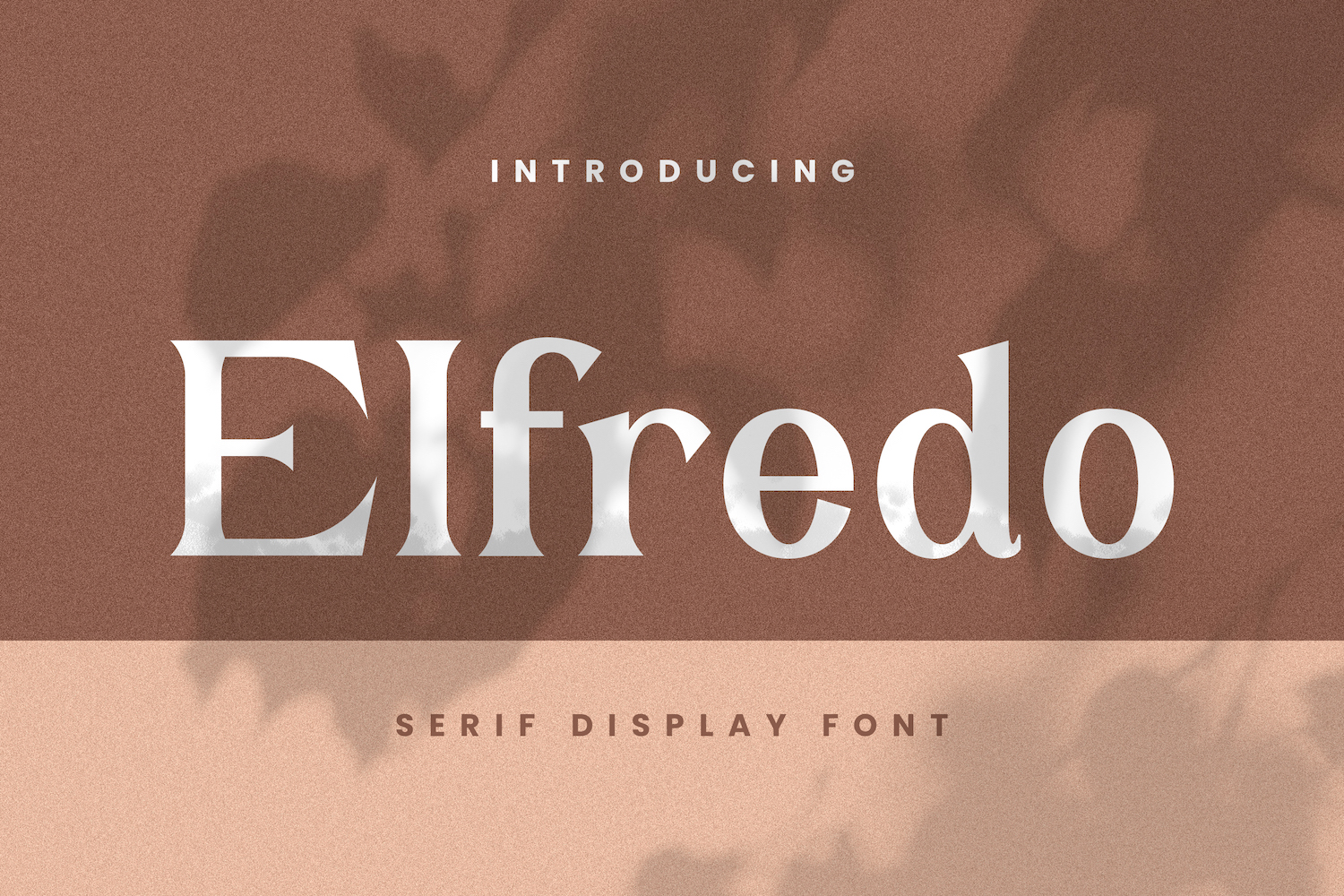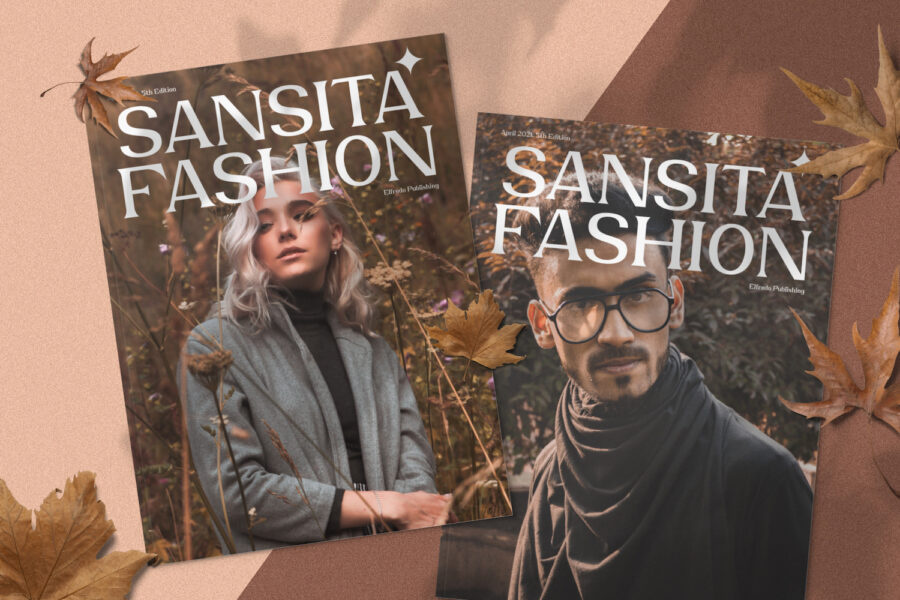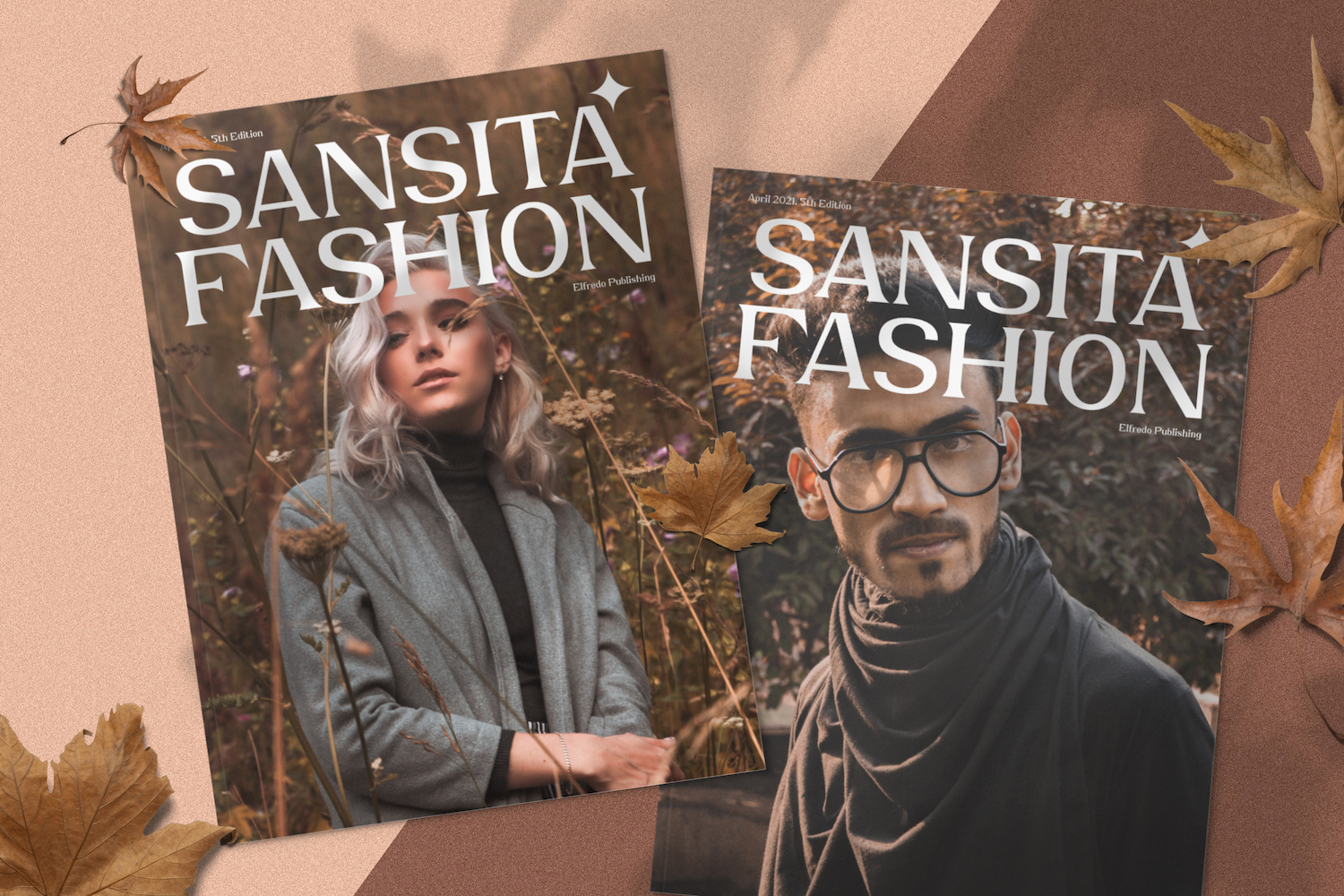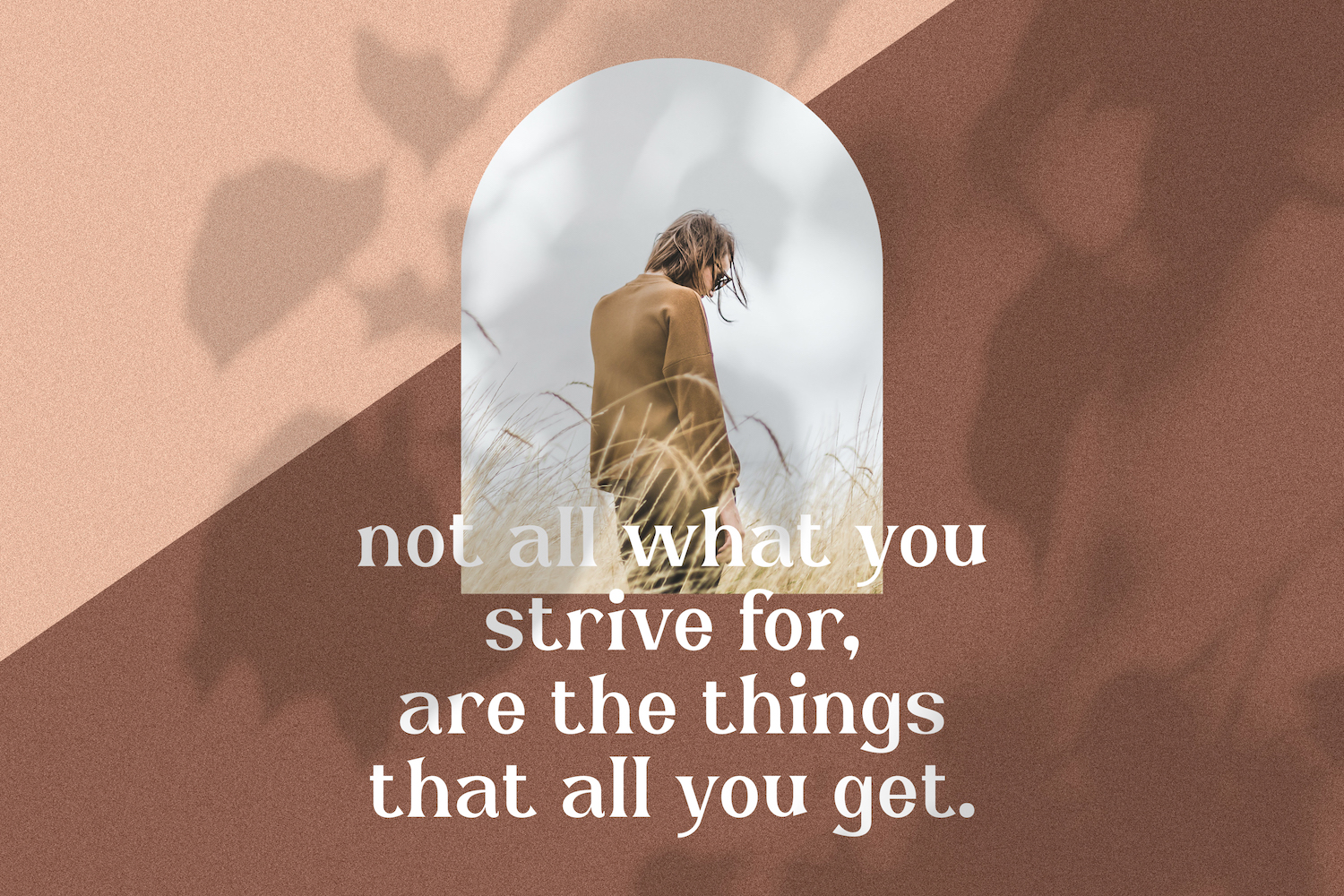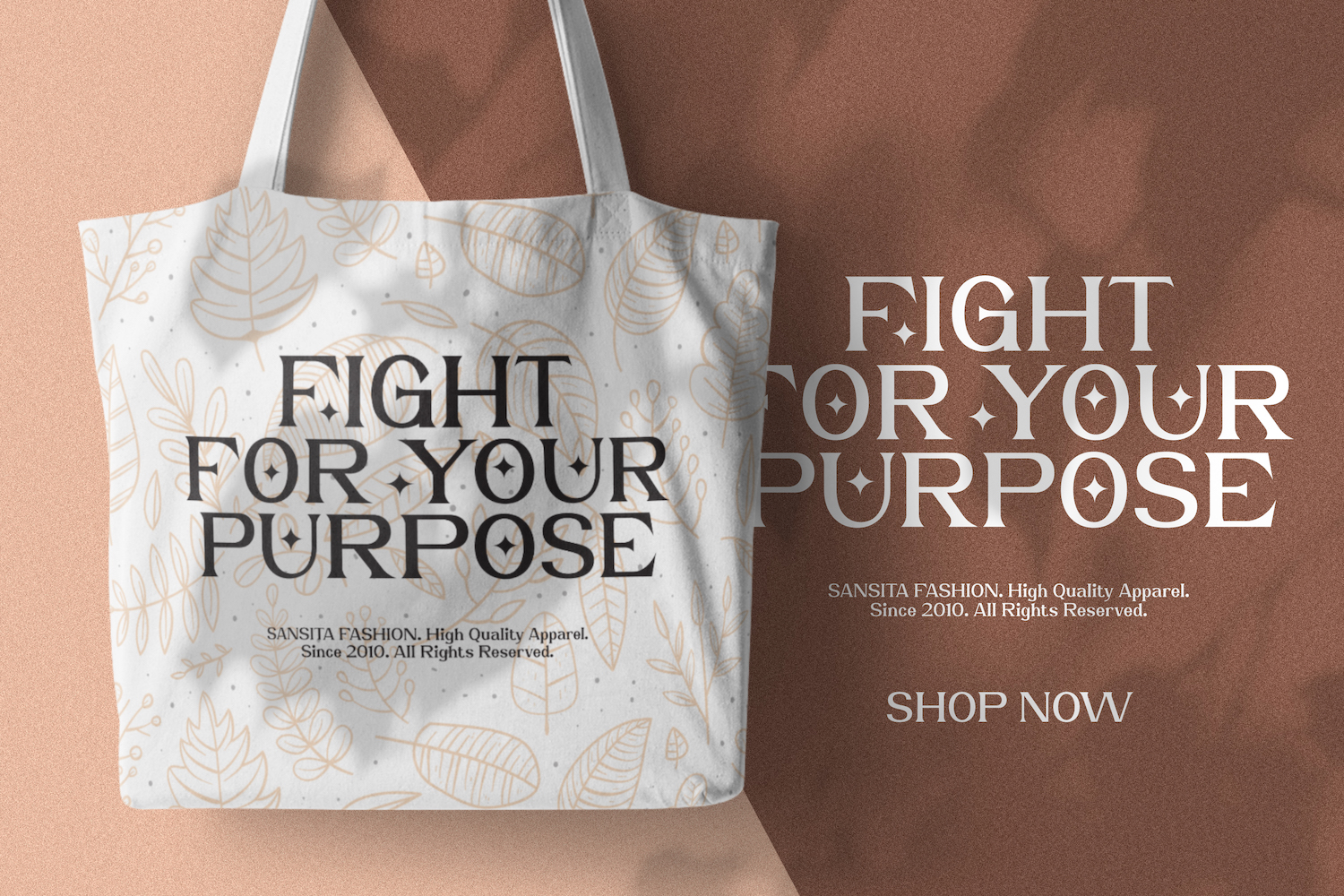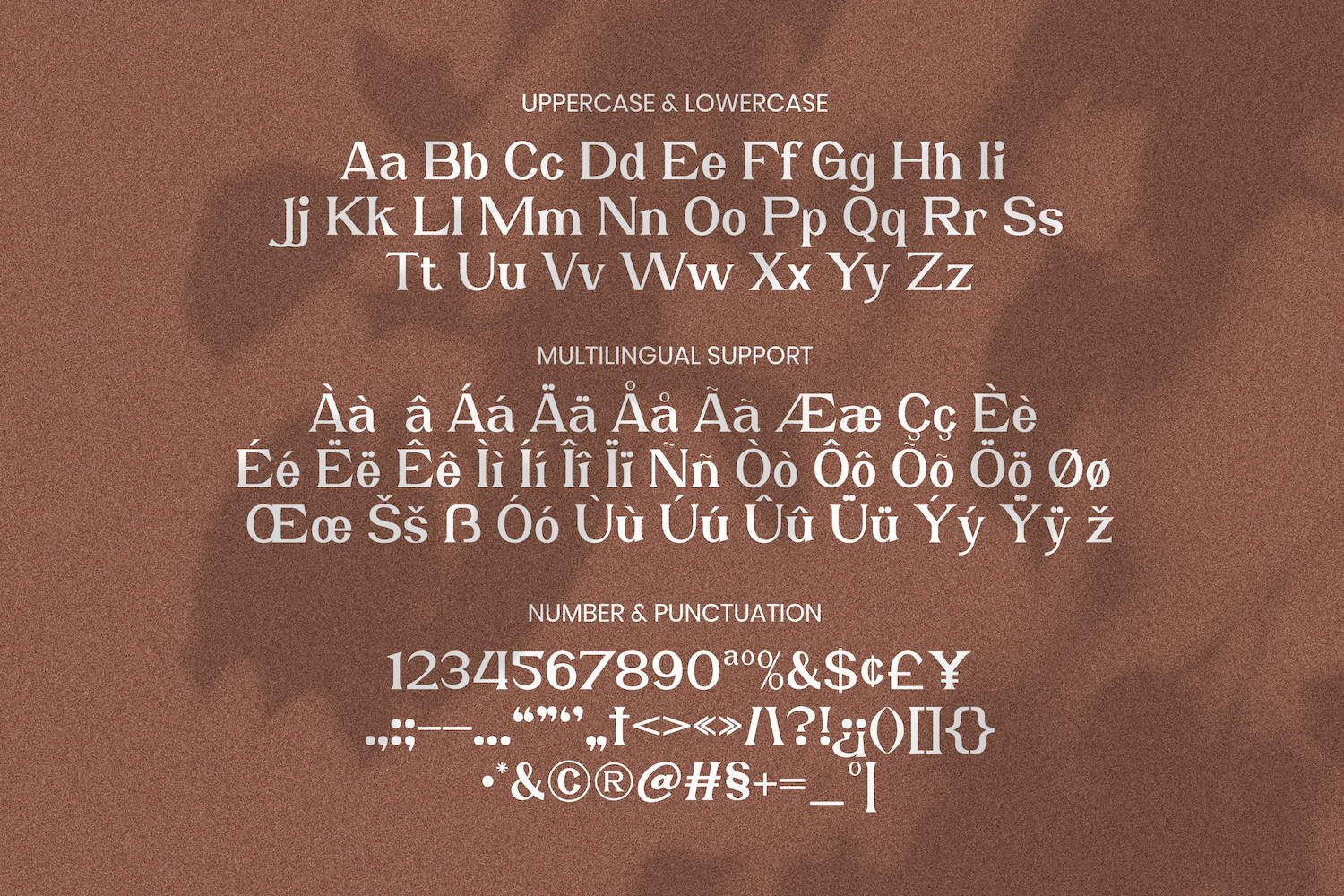
Elfredo
Elfredo is a refined serif display font that blends classic elegance with a modern touch. Its sharp serifs and balanced proportions create a sophisticated presence, making it a perfect choice for editorial design, fashion branding, and stylish packaging. The font’s high contrast strokes and graceful curves ensure a timeless aesthetic that captures attention while maintaining readability.
Designed for versatility, Elfredo works beautifully in both headlines and body text, offering a polished look for magazines, logos, posters, and lifestyle products. With extensive multilingual support, numbers, and punctuation, it provides a complete typographic solution for creative professionals who seek elegance, professionalism, and flexibility in their projects.